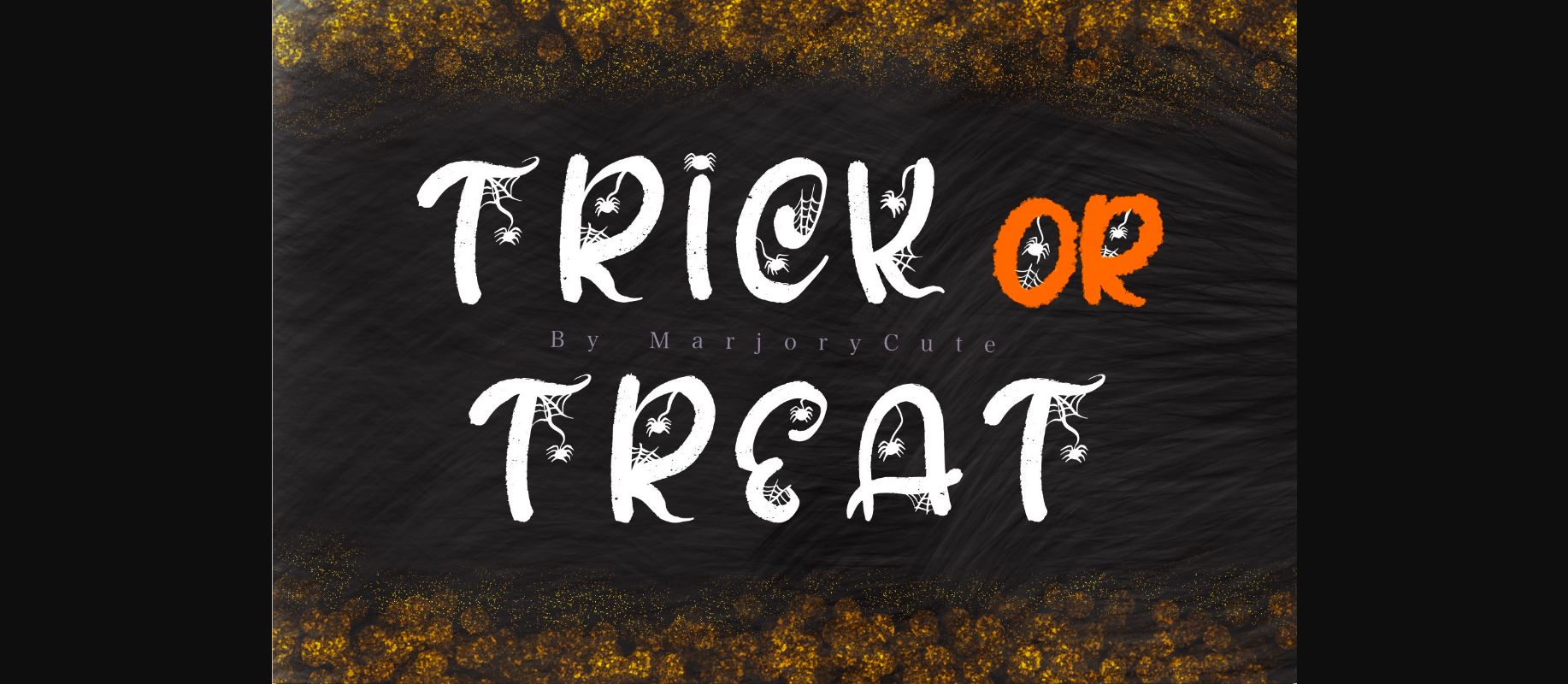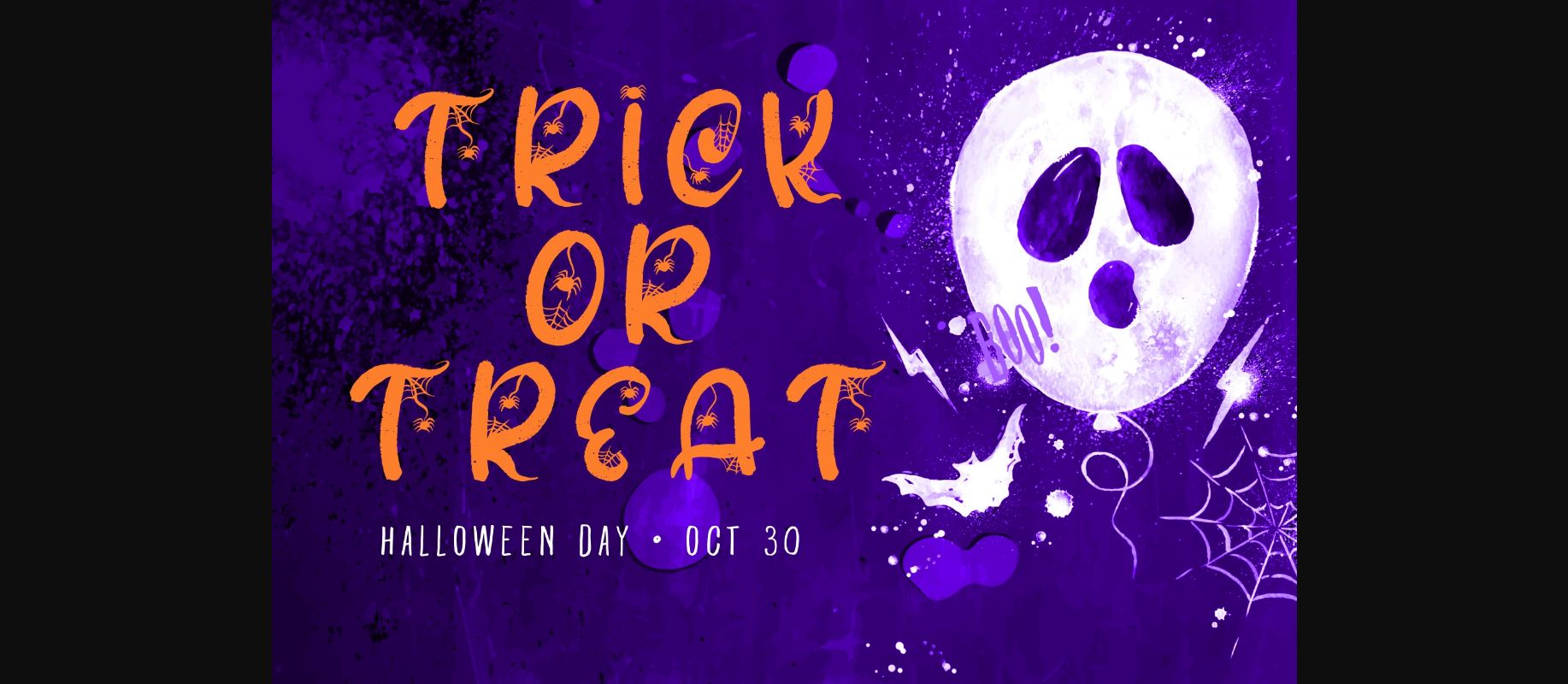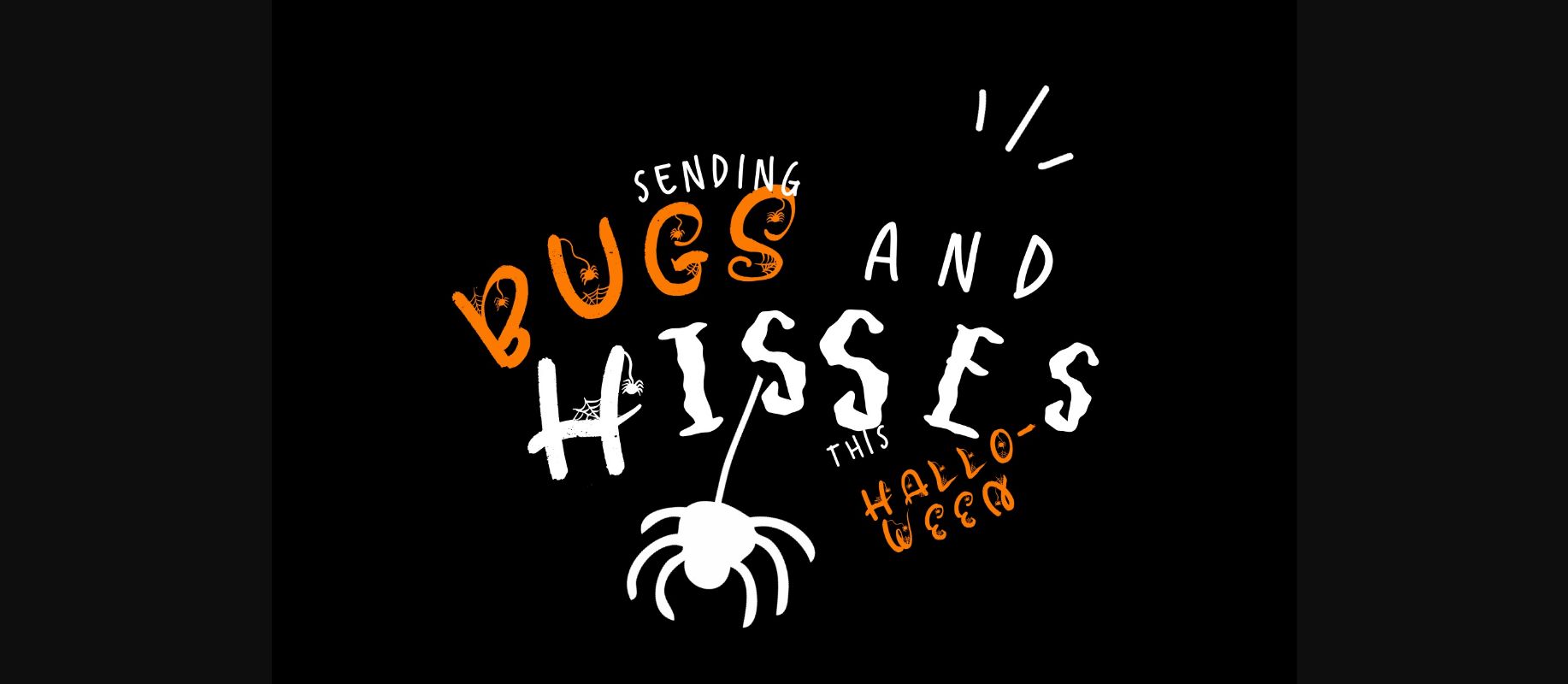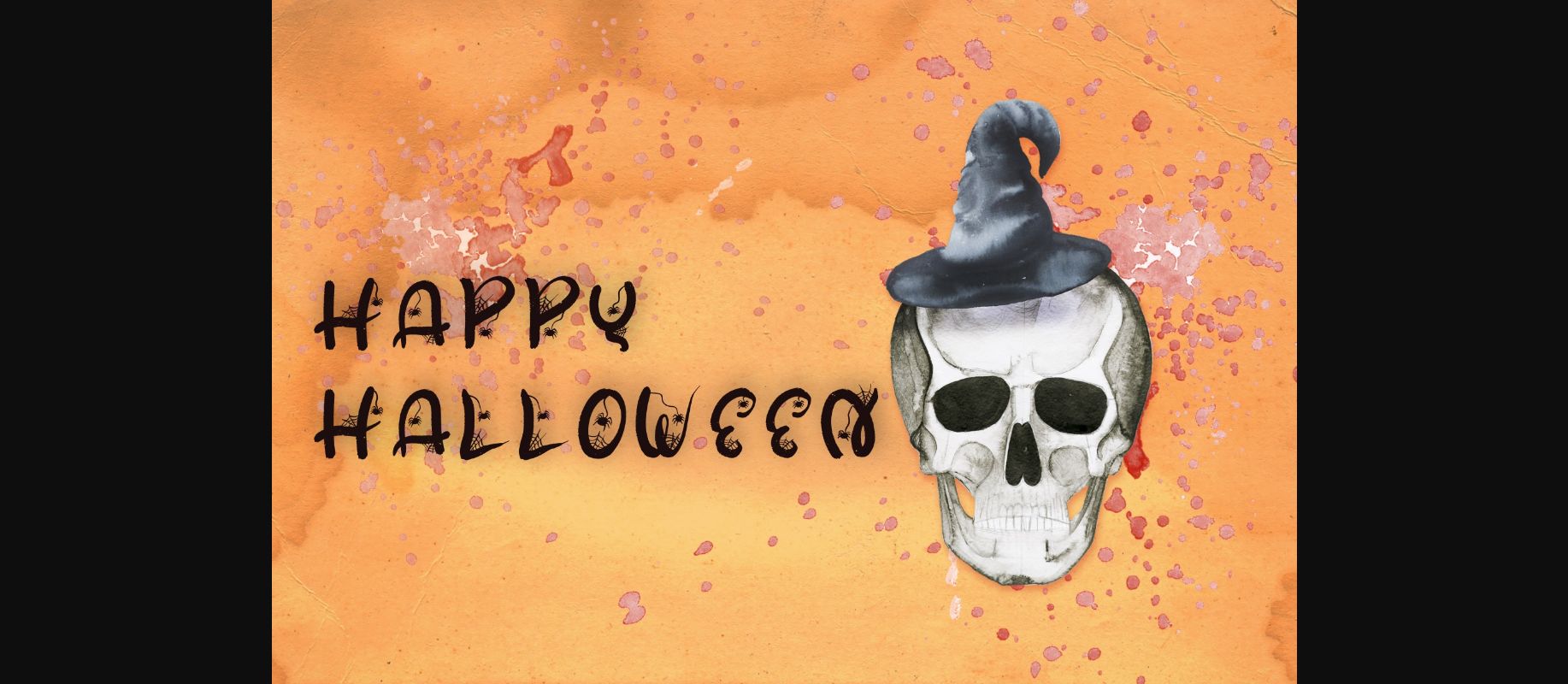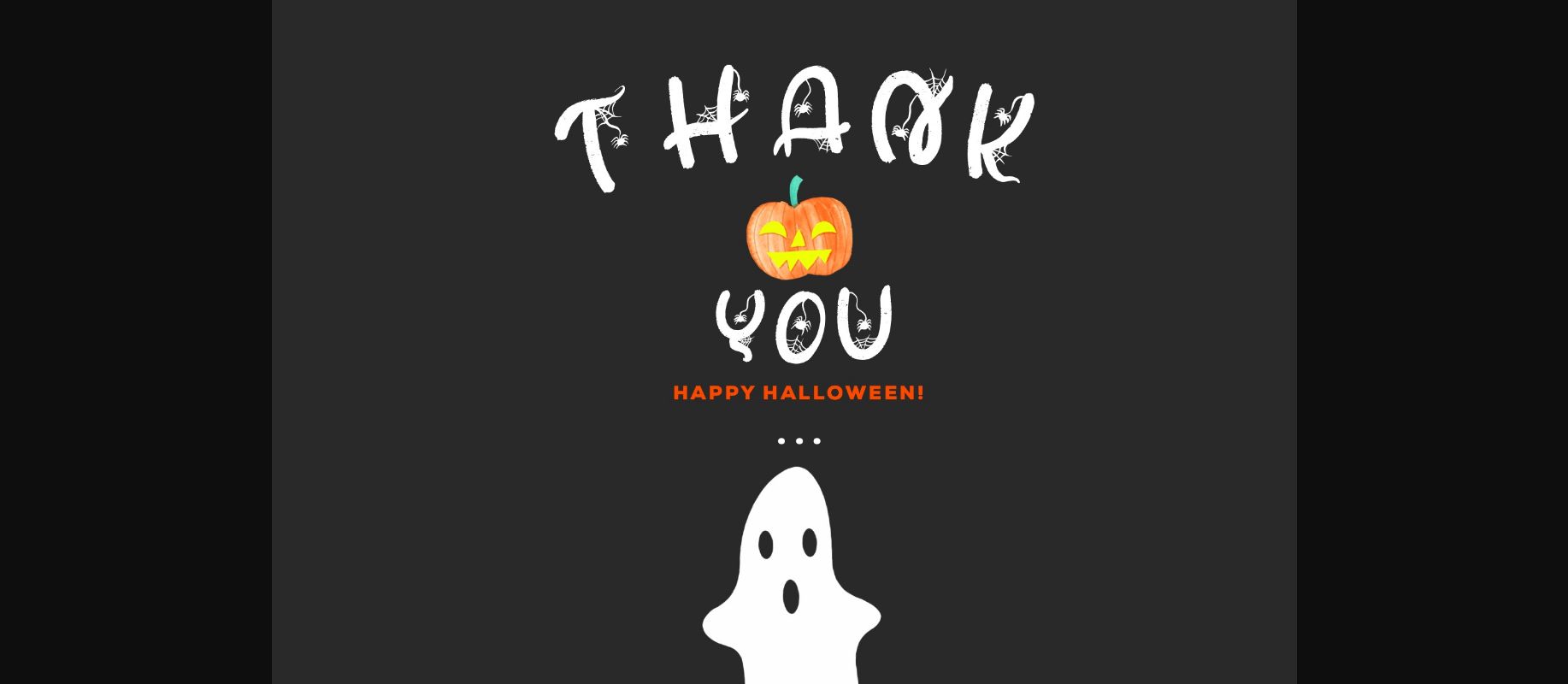
Trick or Treat Font
About Trick or Treat Font
Trick or Treat is a fun and spooky decorative font. Add this fun and interesting font to your Halloween themed designs, and notice how it makes them come alive!